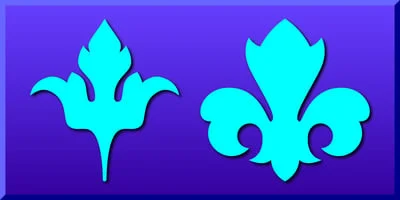
Foliage Ornaments Font
Foliage Ornaments Font is perfect for botanical garden signage, organic product packaging, nature-themed wedding decorations, eco-friendly brand communications, forest conservation materials, and natural wellness center branding. Its organic character makes it ideal for landscape designers, botanical illustrators, organic farmers, environmental organizations, and any application requiring leafy typography that conveys natural beauty, botanical elegance, and the flourishing abundance of lush foliage and verdant plant life.
Foliage Ornaments Font is exciting because it captures the organic beauty and natural elegance of botanical foliage through intricately designed ornamental elements that mirror the delicate patterns and graceful forms found in nature's most beautiful leaves and plant structures. Its botanical proportions and leaf-inspired details reflect the sophisticated artistry of natural design and the peaceful harmony that emerges from organic growth patterns, making it perfect for organizations celebrating environmental beauty and natural wellness. The font's foliage character transforms communications into gardens of typographic artistry.
Foliage Ornaments Font family includes botanically-inspired weight variations typically featuring Light, Regular, Medium, and Bold options with organic styling that maintains natural authenticity. The family often incorporates botanical symbols, leaf patterns, and nature ornaments designed for environmental applications, providing designers with comprehensive tools for creating authentic, foliage-focused typographic compositions.
When selecting botanical ornamental typography solutions, Foliage Ornaments Font represents an exceptional choice for natural and environmental design projects. This organic typeface brings instant botanical authenticity to any design, making it invaluable for landscape architects, environmental educators, and nature-focused brands celebrating botanical beauty. Whether you're developing botanical garden materials, creating organic product branding, or designing environmental conservation campaigns, Foliage Ornaments Font provides the natural elegance and botanical authenticity essential for expressing organic beauty in today's environmentally-conscious design marketplace.